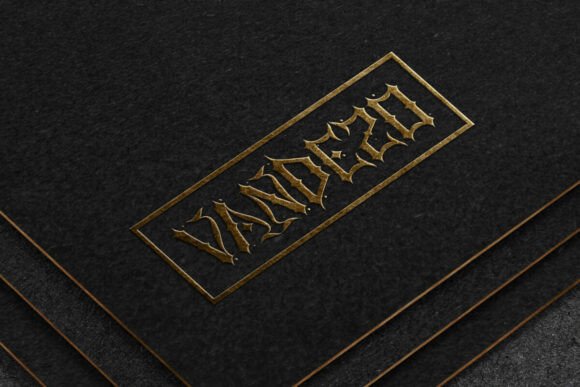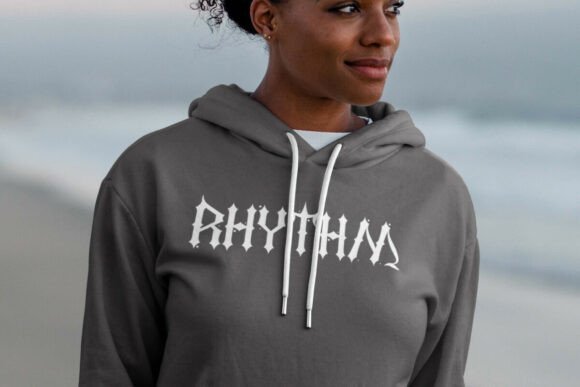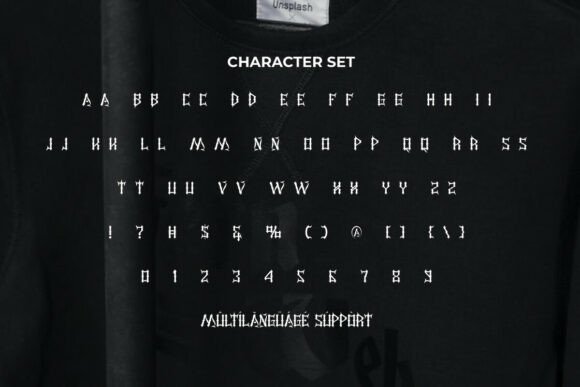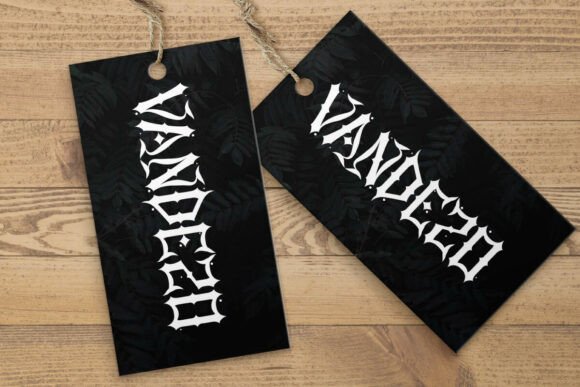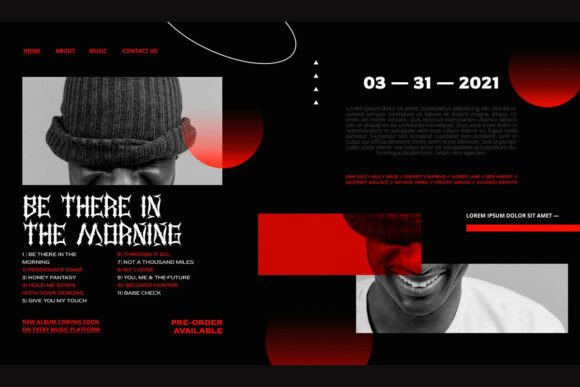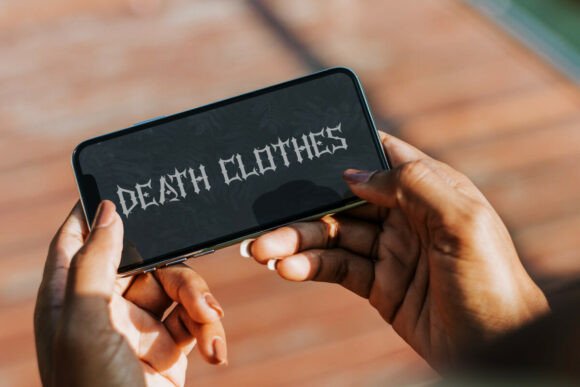
Introduction to Death Clothes Font
Death Clothes is a fiercely powerful blackletter-inspired display font that immediately commands attention, featuring sharp, thorny serifs and a gothic, blackletter-inspired structure for an edgy, metal-influenced aesthetic.
This aggressive, all-caps Death Clothes font is designed with jagged, almost menacing terminals and a heavy weight that perfectly embodies a raw, underground culture It is the definitive choice for branding related to metal music, punk apparel, extreme sports, or any project that requires a dark, unmistakable counter-culture vibe and a high degree of visual intensity.